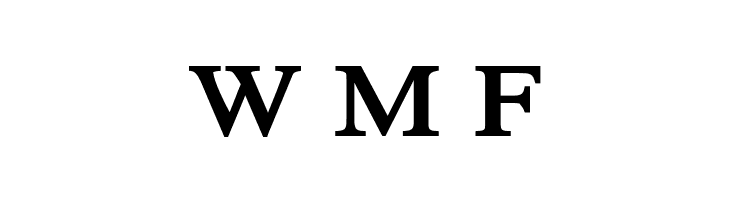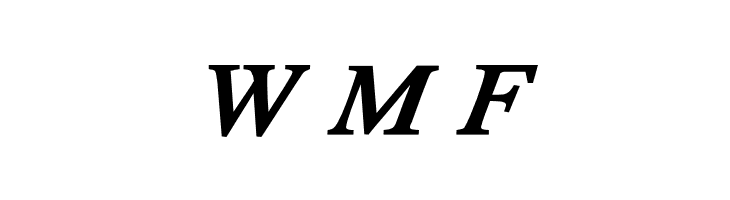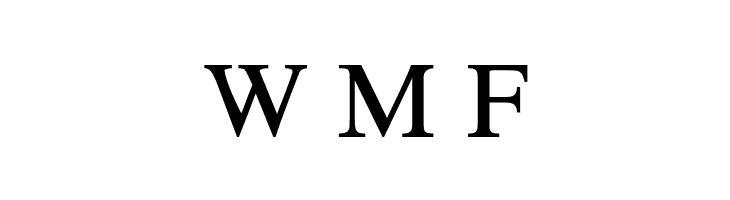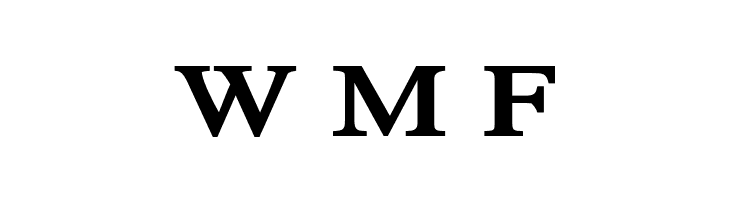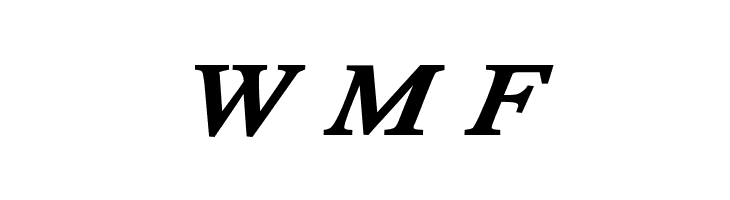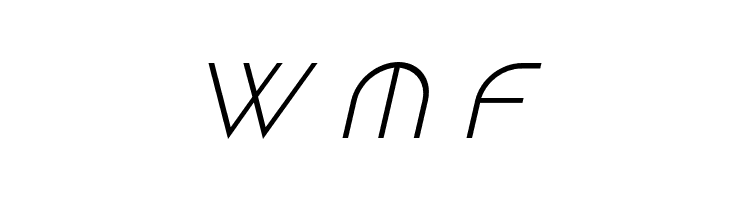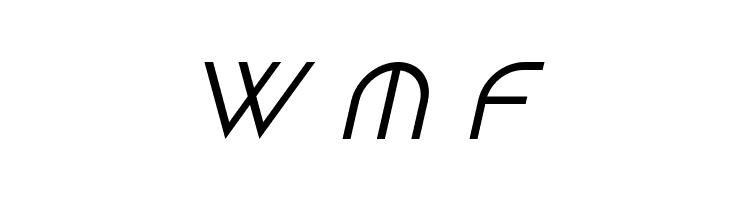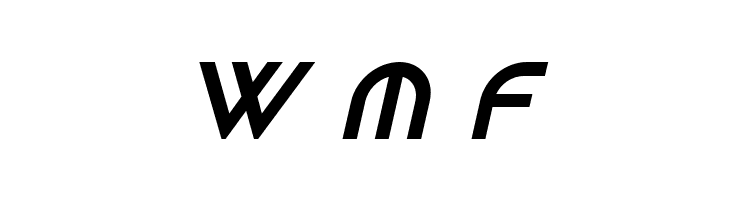
A bold, classic serif font with high contrast and pronounced serifs.
A bold, italic serif font with a classic and elegant style.
A classic serif font with elegant curves and a strong presence.
A classic serif font with medium weight and elegant italic styling.
A bold, italic serif font with a modern and dynamic style.
A bold serif font with strong, classic features and modern versatility.
A bold, italic serif font with a classic and authoritative style.
A sleek, modern oblique font with smooth curves and clean lines.
A sleek, modern oblique font with smooth curves and sharp edges.
A bold, oblique font with a modern and dynamic style.